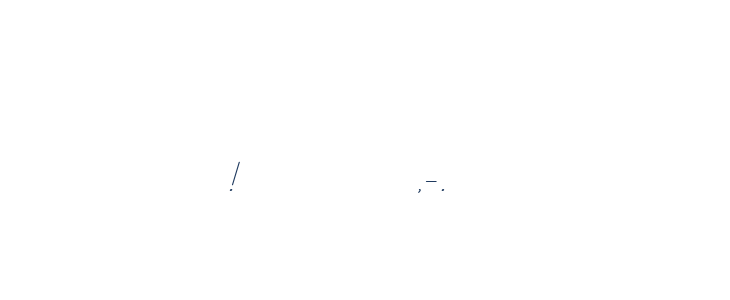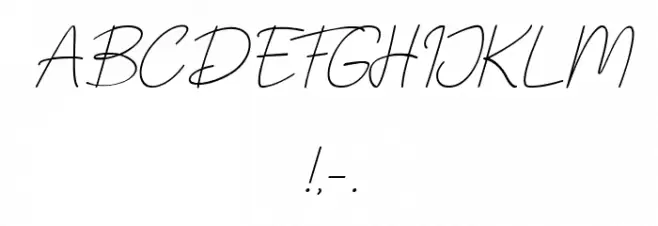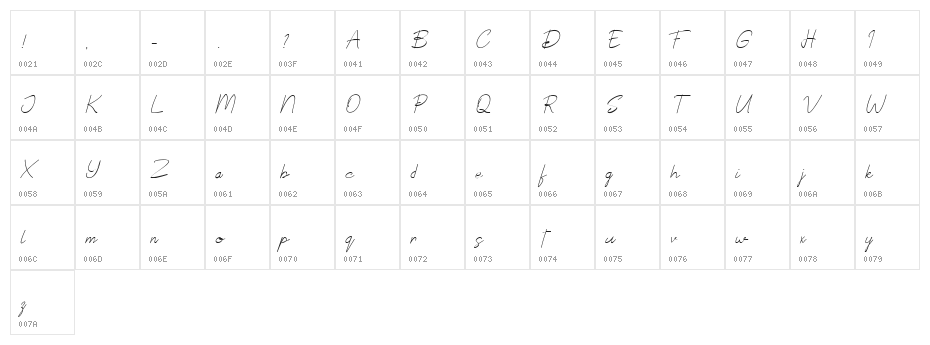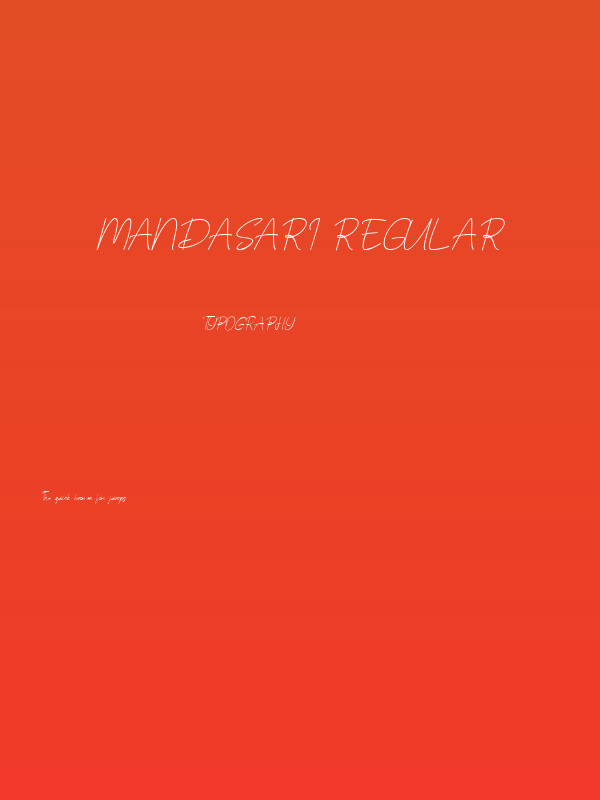
Mandasari Regular Font
Mandasari Regular Description
This font features a delicate and flowing script style that mimics elegant handwriting. The letters are connected with smooth, sweeping strokes, giving it a fluid and graceful appearance. The uppercase letters are slightly taller and more pronounced, while the lowercase letters maintain a consistent flow. The font's thin lines and gentle curves create a sense of sophistication and charm. It is well-suited for projects that require a personal touch or a sense of elegance. The spacing between characters is balanced, allowing for easy readability while maintaining its stylish look.
A delicate, flowing script font with elegant, connected strokes from Regular fonts.
- Proposed Projects: Ideal for wedding invitations, greeting cards, personal branding, and elegant stationery.
- Weight: Light
- Overall Style: Elegant
- Use Case: Logos, Invitations, Personal Branding